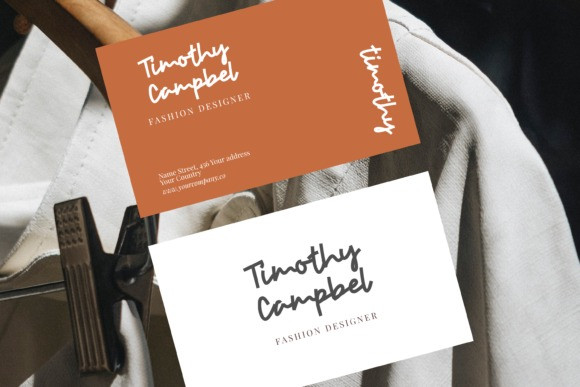
Little Rise Handwritten Font
Little Rise Handwritten Font is perfect used for various purposes such as editorial design, branding, book / cover title, poster, apparel design, product packaging, label, special events or anything that need hand-drawn taste.